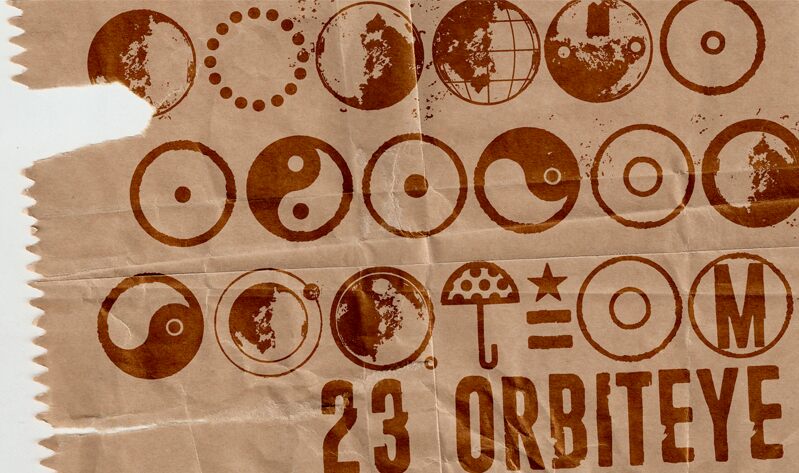
23 Orbiteye
23 Orbiteye is a bold, eroded display font designed by junkohanhero. Its condensed width makes it suitable for a range of projects including poster designs, logos, and headlines. With its unique eroded style it can also be used to create eye-catching titles for magazines or websites.